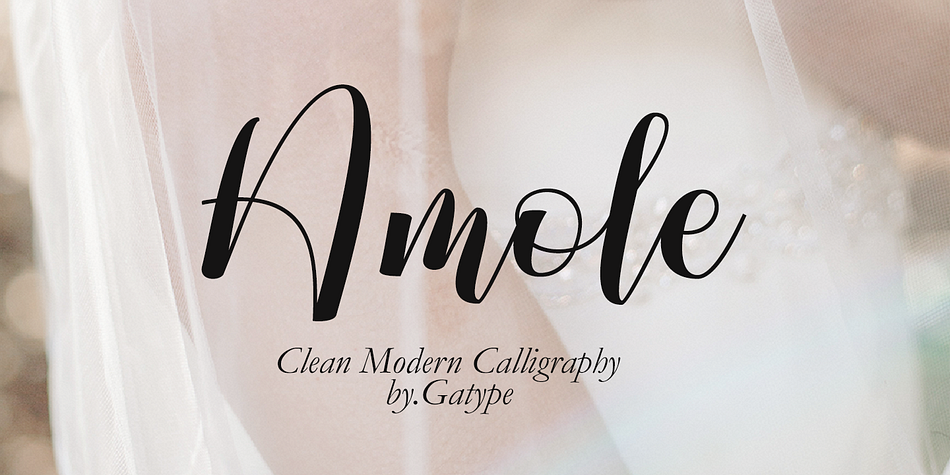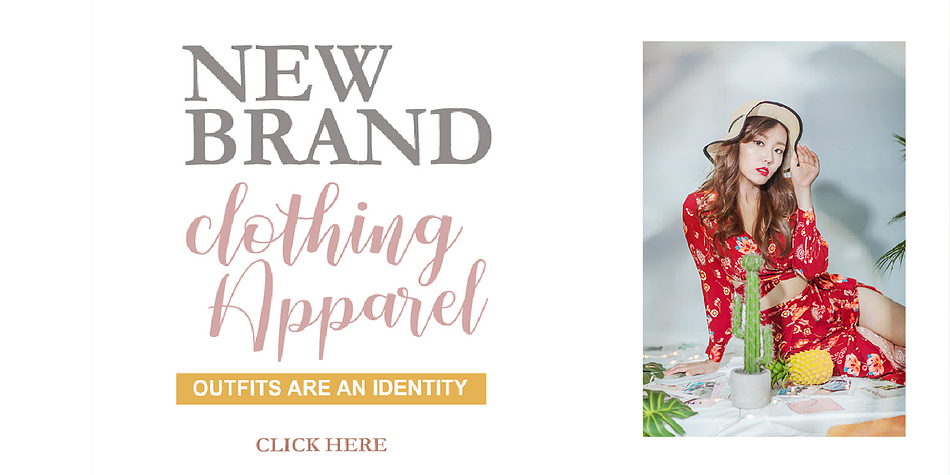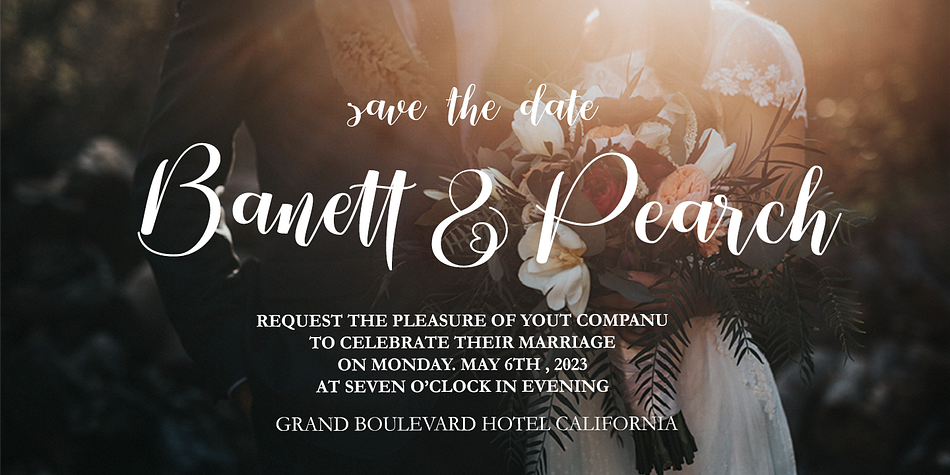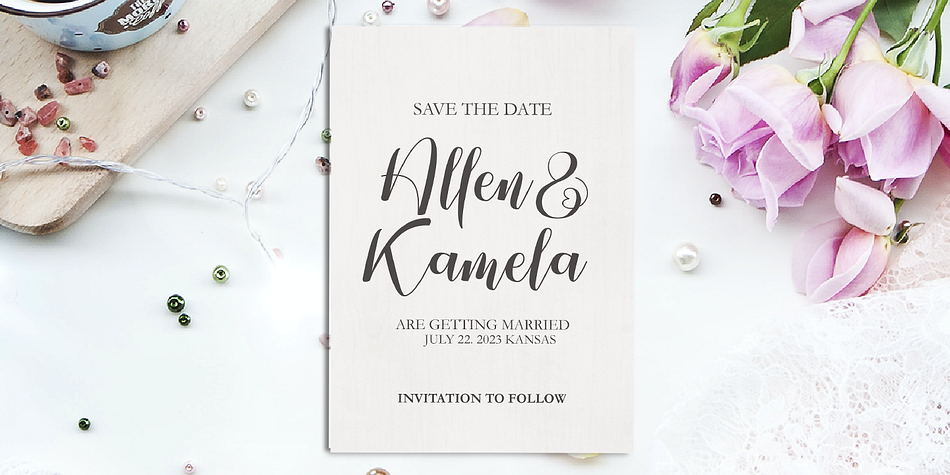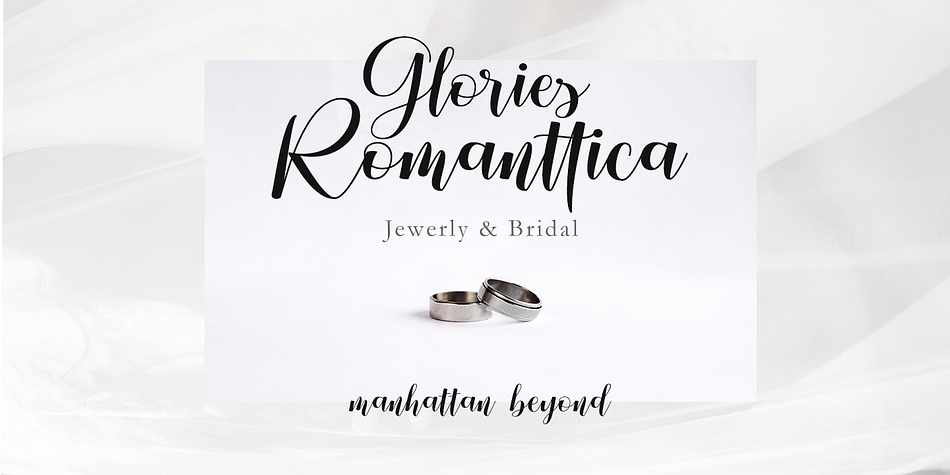
Amole
Amole is a modern calligraphy font family published by Gatype.
The Amole font style comes with great character. Ideal for invitations, name tags, handwritten quotes, product packaging, merchandise, social media and greeting cards. It contains a complete set of lowercase and uppercase letters, a wide variety of punctuation marks, numbers, and supports multi-language. This package is fully accessible to craftsmen or designers.